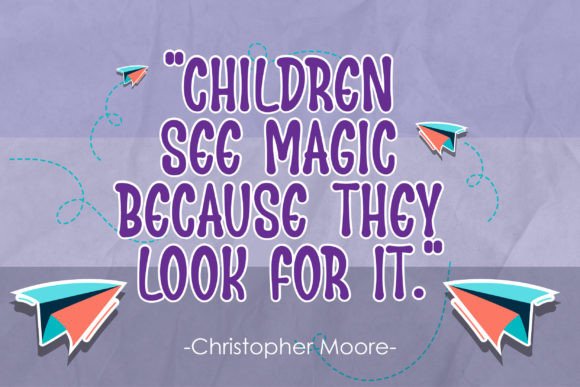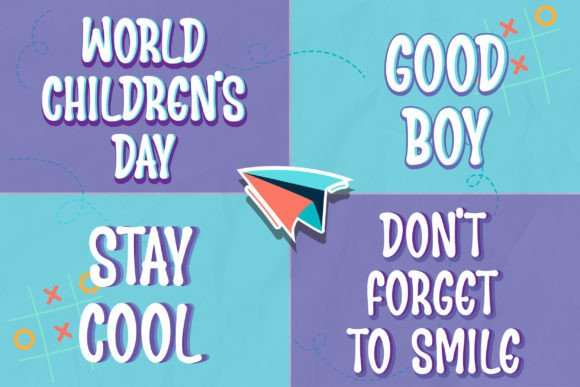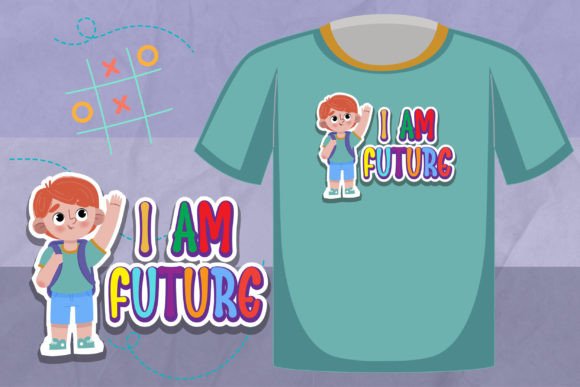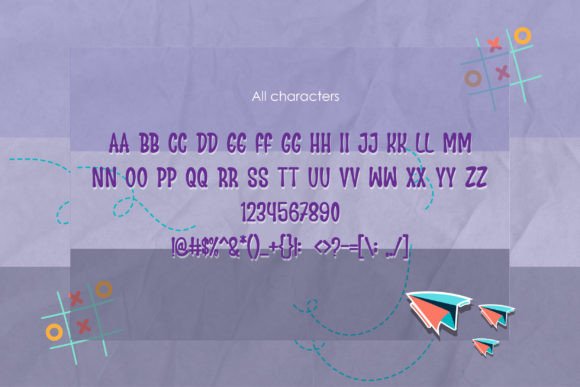
Get Ready to Level Up Your Typography Game
You know that moment when a spark of creativity hits, and you just can’t wait to bring your idea to life? For designers, that moment often comes when we’re brainstorming a new project, and we need the perfect font to make it stand out. That’s where the Hello Kids Font comes in – a thick and playful display font designed to capture attention and make your typography designs pop.
Whether you’re working on a poster, t-shirt design, or title for a video, the Hello Kids Font is the perfect tool to elevate your project. Its unique style and versatility make it a valuable asset for designers, allowing you to create eye-catching typography that sets your work apart from the rest. With the Hello Kids Font, you’ll be able to take your designs to the next level and leave a lasting impression on your audience.
Hello Kids Font Key Features
- Font Family: Hello Kids, a playful and educational font designed for children.
- Font Size: The font includes a range of sizes, from 8pt to 72pt, making it suitable for various applications.
- Resolution: The font is designed to be scalable, with a resolution of 300 DPI (dots per inch), ensuring clear and crisp text at any size.
- Unique Characteristics: The Hello Kids font features a child-friendly design with rounded shapes, bold lines, and a colorful aesthetic, making it perfect for educational materials, children’s books, and websites.
- Language Support: The font supports a wide range of languages, including English, Spanish, French, German, Italian, and many more.
Hello Kids Font Review
As a designer, I was excited to dive into the Hello Kids Font and see how it stacks up. On the plus side, I think the font is incredibly cute and playful. ✨ The rounded edges and childlike charm make it perfect for kid-focused projects or anything that needs a touch of whimsy. ✨ I also appreciate the variety of weights and styles available, which makes it easy to find the perfect fit for your design.
However, I do think there are some limitations to the font. ✠️ For one, the font may be too playful for more serious or professional projects, and it may not be suitable for text-heavy content. ✠️ Additionally, the font’s childlike nature may make it difficult to use in certain cultural contexts where a more mature or sophisticated font is preferred.
Overall, I think the Hello Kids Font is a great choice for the right project. While it may not be perfect for every design, its unique charm and versatility make it a great addition to any designer’s toolkit. I’d definitely consider using it again in the future.
- Cute and playful design
- Variety of weights and styles available
- Perfect for kid-focused projects or anything that needs a touch of whimsy
- May be too playful for serious or professional projects
- May not be suitable for text-heavy content
For best results, use the “Hello Kids Font” in bold or italic styles to add emphasis and visual interest to your designs. Experiment with different font sizes and colors to create a cohesive look. Use the font in conjunction with other fun and playful graphics to create a engaging and child-friendly design.
The “Hello Kids Font” is ideal for use in children’s educational materials, party invitations, and other kid-friendly designs. It’s also great for use in branding and marketing materials for businesses that cater to children or families.
Q: What is the font’s recommended line height and letter spacing for optimal readability?
We recommend a line height of 1.2 to 1.5 times the font size and a letter spacing of 0.05 to 0.1 em. This will help maintain a clear and comfortable reading experience, especially for children. Adjust these settings according to your design needs and preferences.